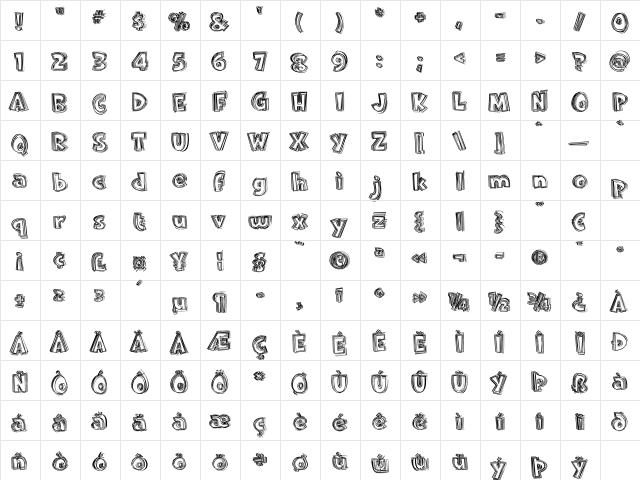
WhiteMeat 'Shakey' Regular Font Preview
WhiteMeat 'Shakey' Regular
Design Context for WhiteMeat 'Shakey' Typeface
WhiteMeat 'Shakey' is a composed and adaptable typeface that performs quietly and consistently across a wide range of design contexts.